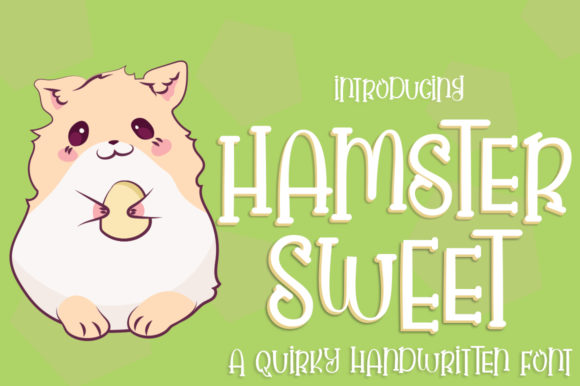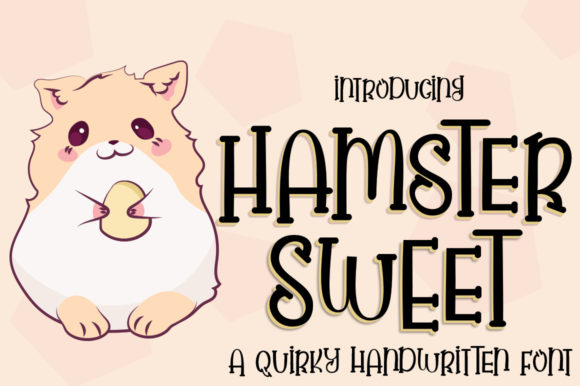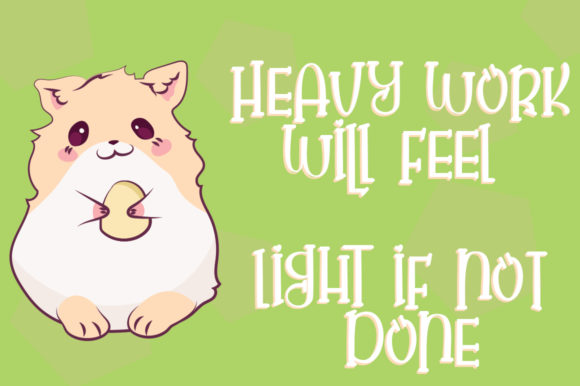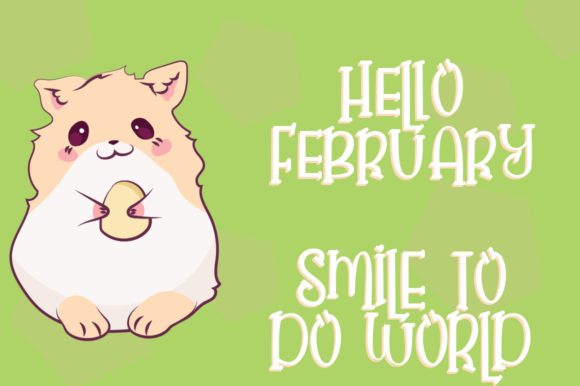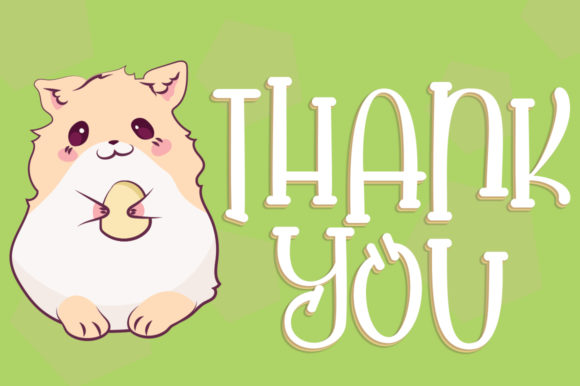
Hamster Sweet Font
About Hamster Sweet Font
Hamster Sweet is, as its name suggests, an incredibly cute and adorable script that feels authentic and playful. Ignite your creativity with this outstanding script!